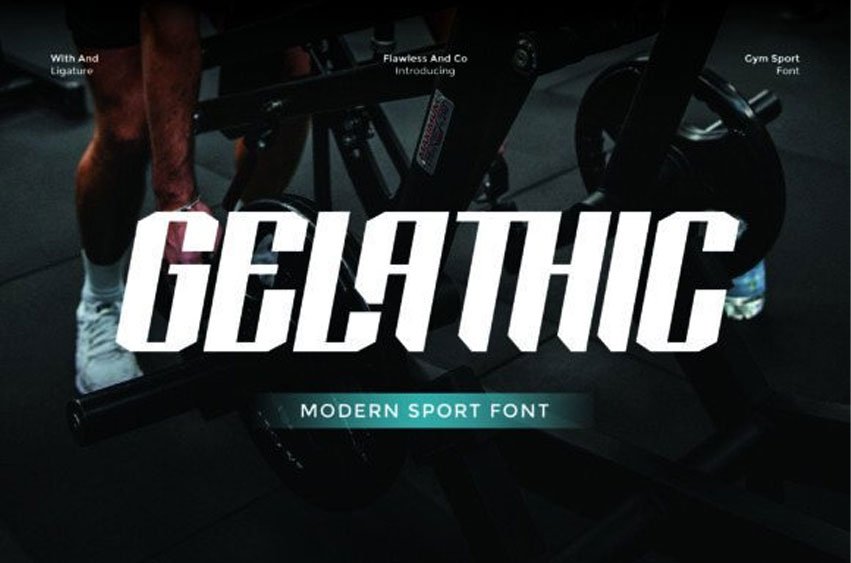
Gelathic Font is a modern sport font designed to dominate with its bold, strong, and sharp-edged aesthetic. This font channels power and precision through its striking angular forms and aggressive attitude. It is the ideal choice for projects that push limits, such as gym branding, energy drink labels, activewear logos, and fitness campaigns.
With its ligatures and clean alignment, Gelathic offers a fresh take on athletic typography, delivering unstoppable visual energy.